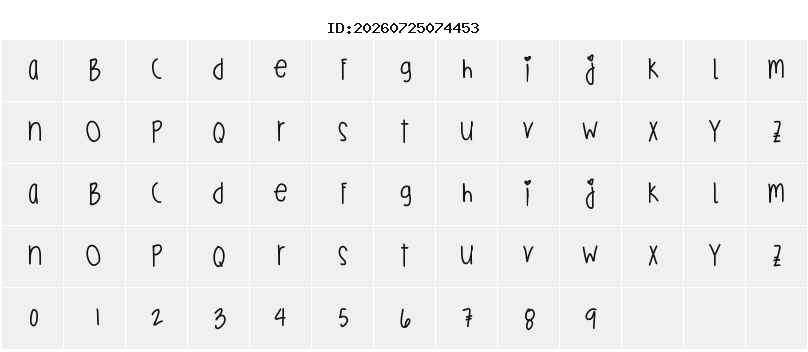
GingerCookies Preview
About GingerCookies.ttf
GingerCookies.ttf is a modern, elegant sans-serif font designed for ultimate readability and visual harmony. Perfect for branding, headlines, web design, and print materials.